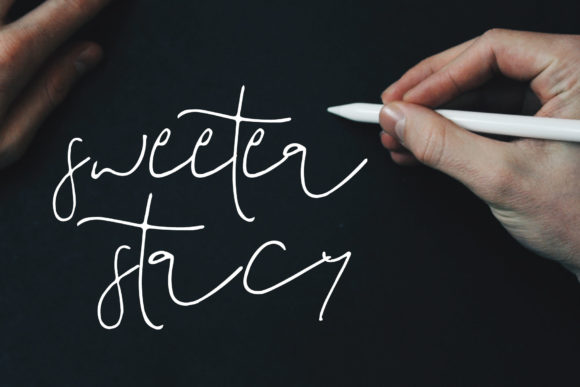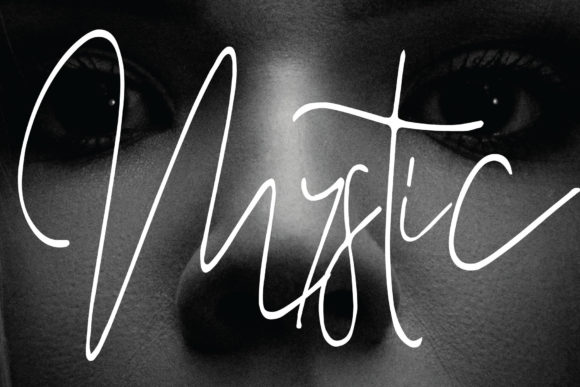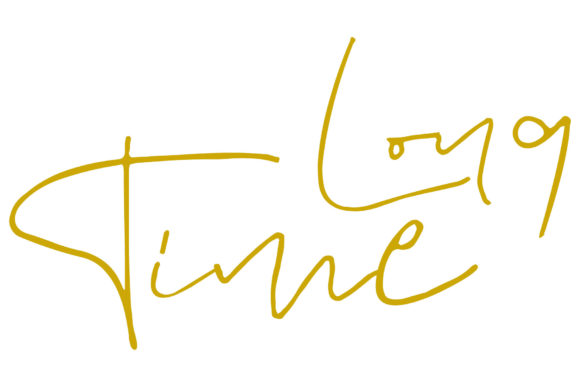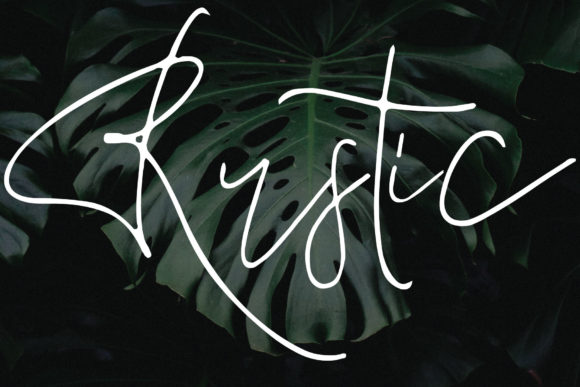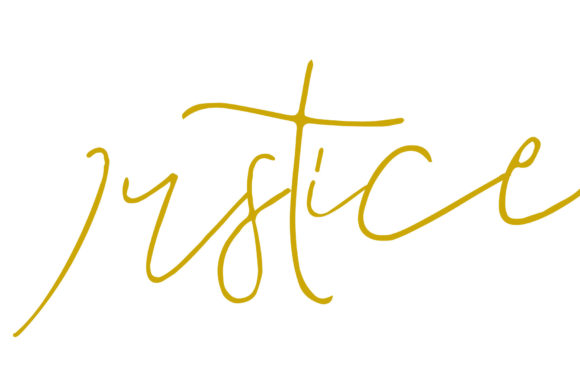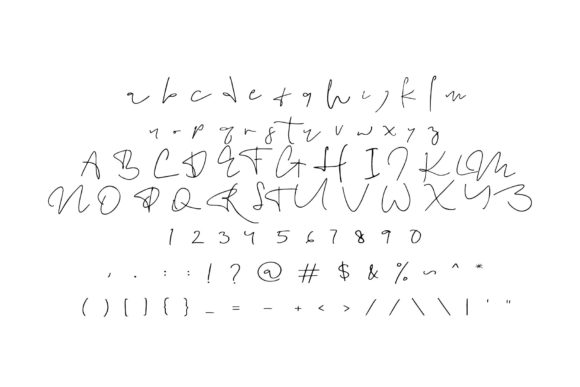
Anastasia Font
About Anastasia Font
Anastasia combines elegance and authenticity into one extraordinary script fone. Get inspired by its contemporary charm.